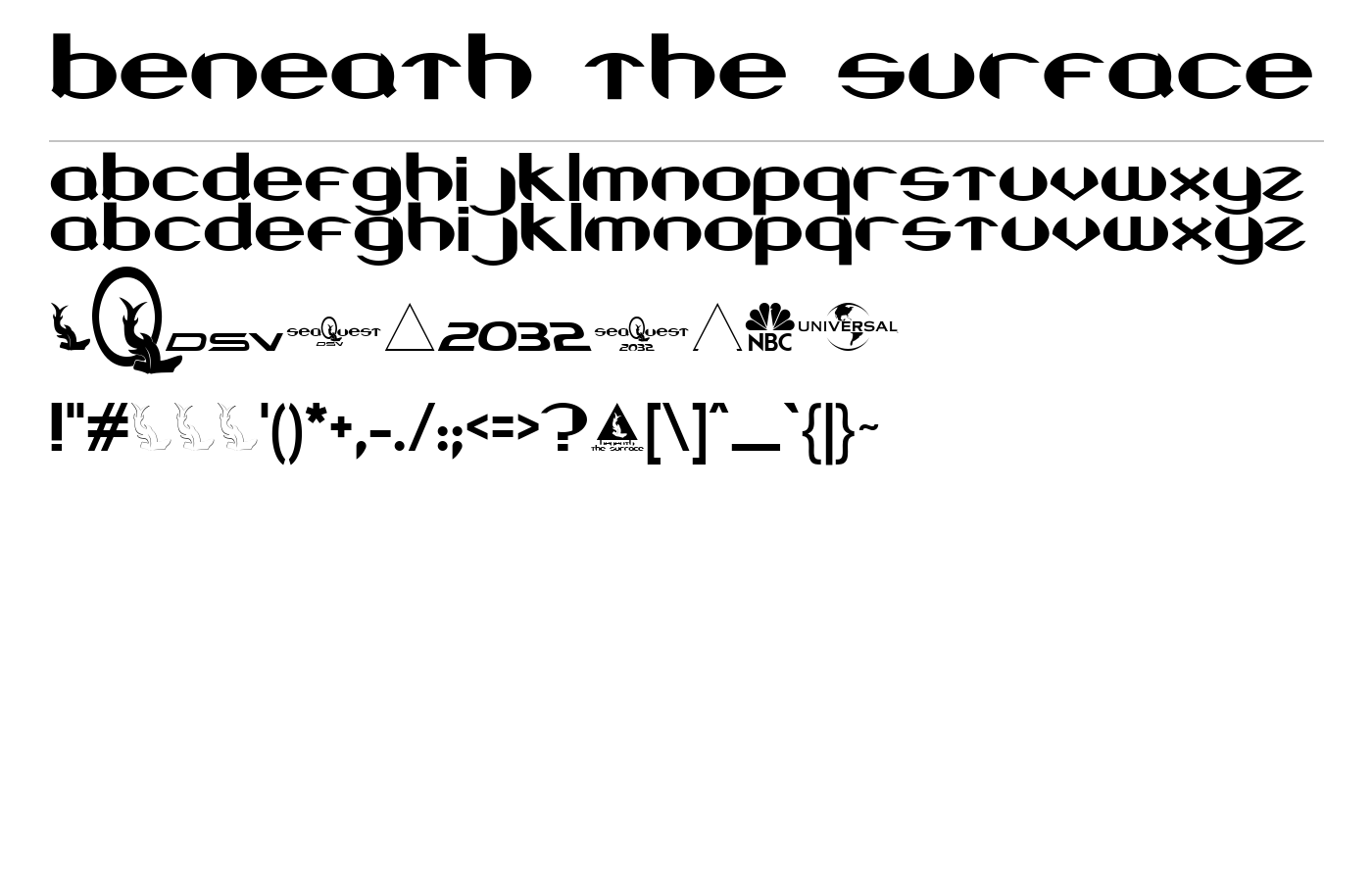
Beneath the Surface is a bold, modern sans serif font with a futuristic and geometric style, characterized by its unique angular cuts and smooth curves. Its distinctive letterforms and high contrast between thick and thin strokes give it a strong, edgy personality, making it ideal for logos, headlines, and branding in technology, sci-fi, and creative industries. This font works best where attention-grabbing and a contemporary look are needed.
Beneath the Surface Font
About Beneath the Surface Font